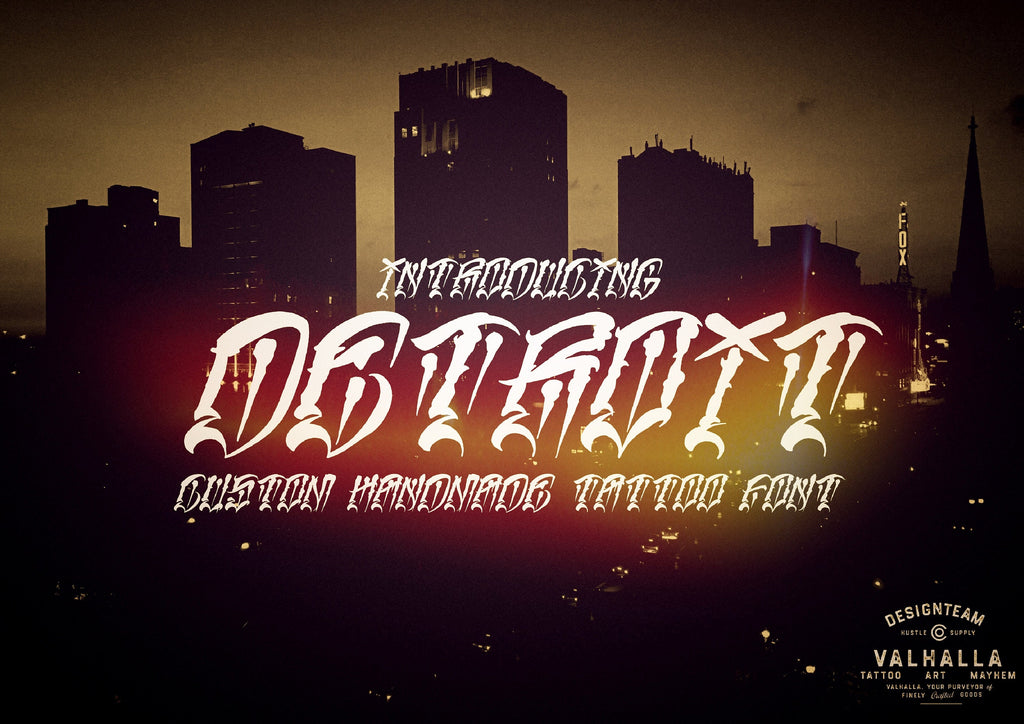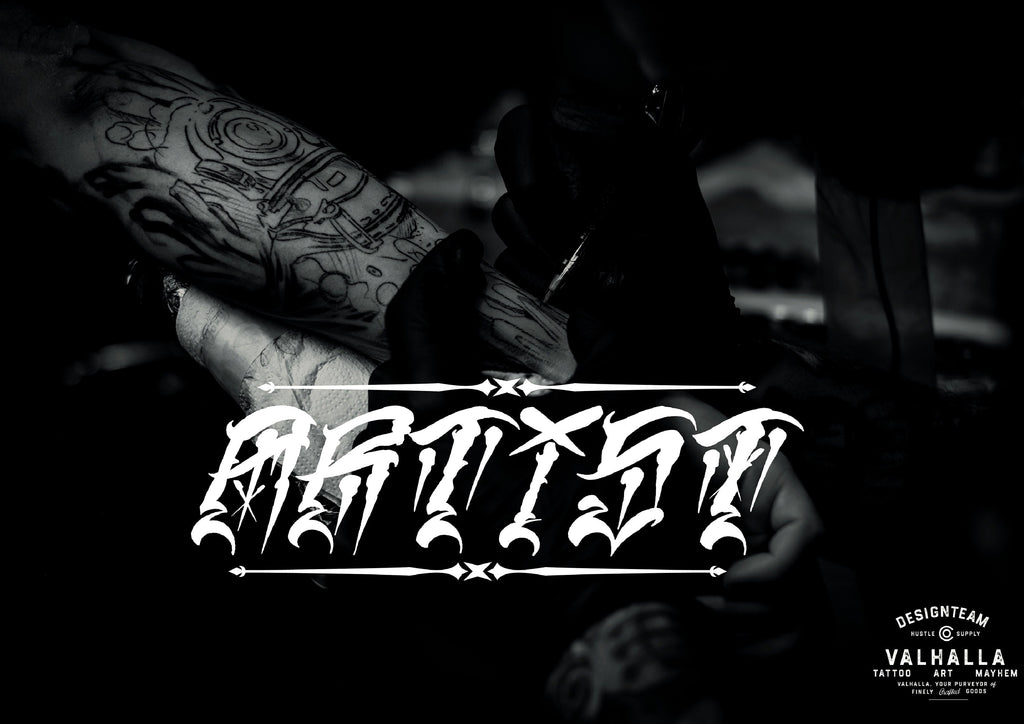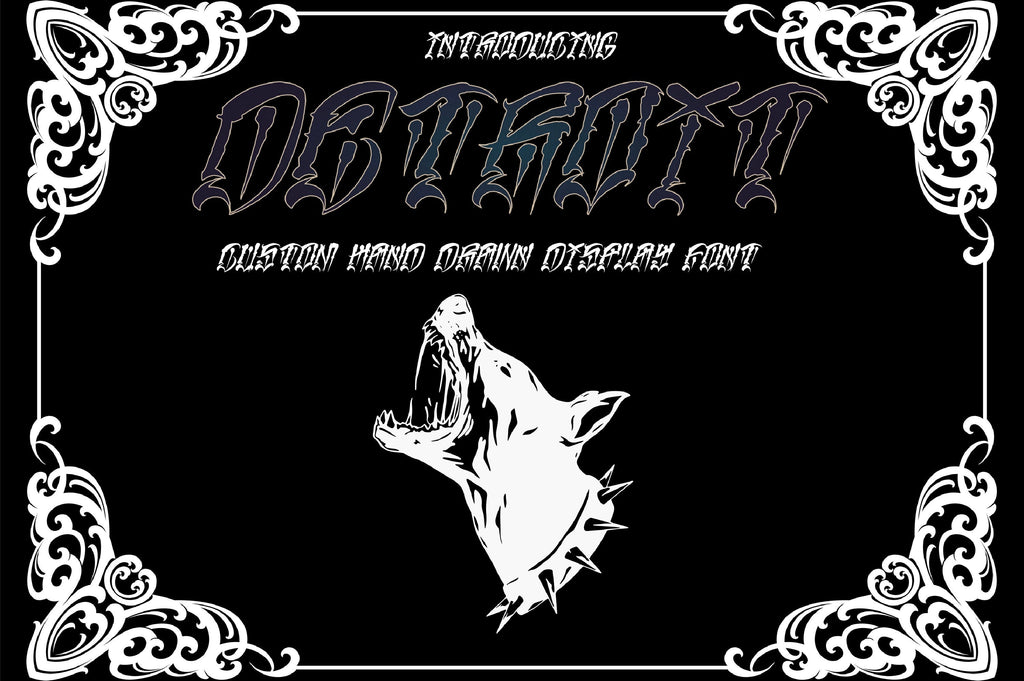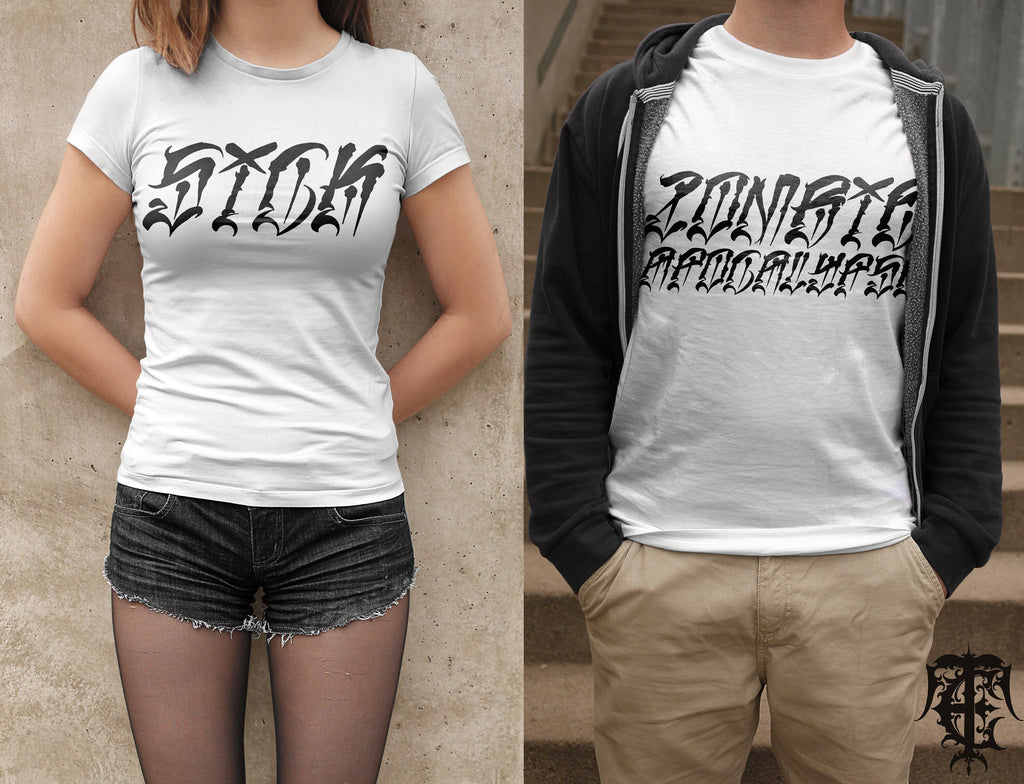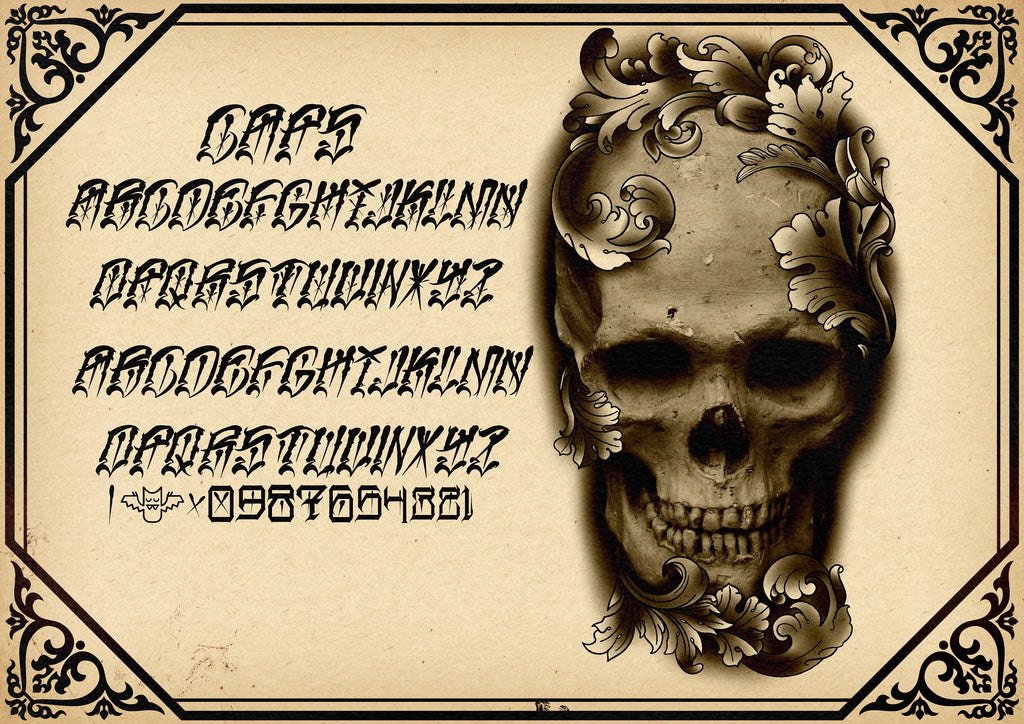
Detroit custom tattoo font (Digital Download)
Custom handmade tattoo font. Alternative characters, procreate brush stamp set, vector alphabet + regular otf & ttf